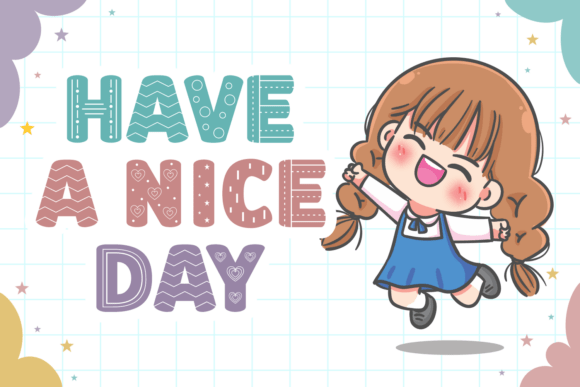
Wola Cute Font
“Wola Cute” font stands out with its charmingly playful and whimsical design. Each character appears hand-drawn, featuring rounded edges and delightful textural elements that evoke a sense of warmth and approachability. The font’s inherent irregularity and varied line weights contribute to its unique personality, making it feel both handcrafted and full of joyful energy. This distinct aesthetic sets it apart from more conventional fonts, offering a refreshing and engaging visual experience.